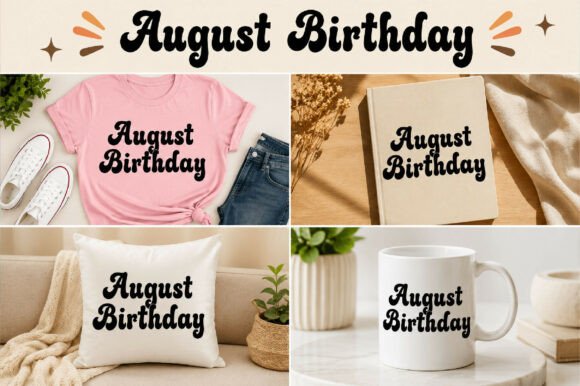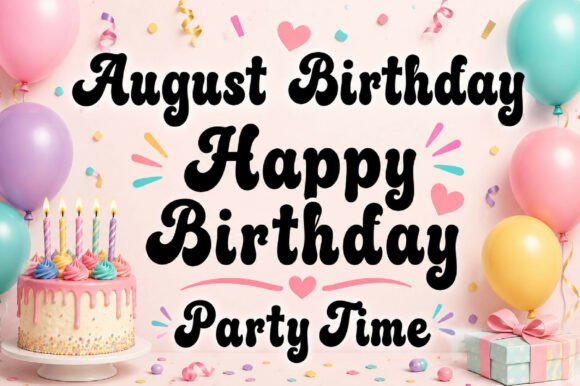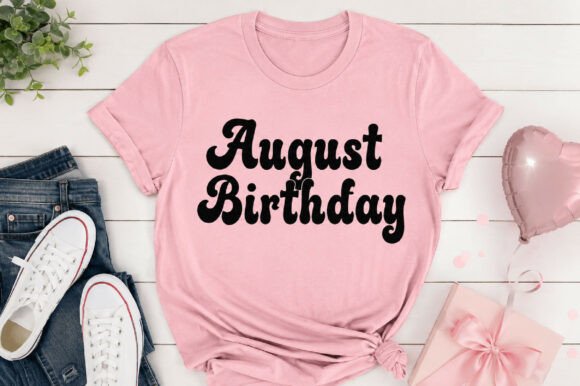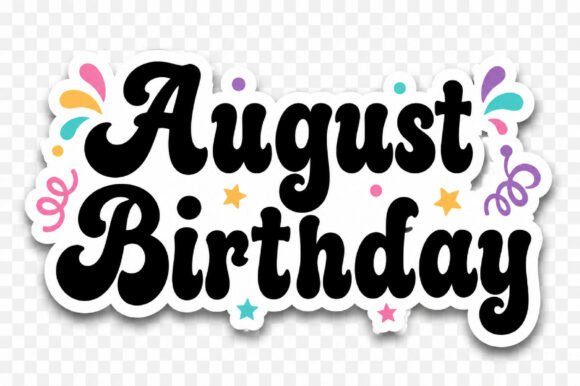
The Perfect Script for Celebrating Life’s Special Moments
Have you ever stumbled upon a font that instantly puts a smile on your face and makes you feel like creating something special? That’s exactly what happens when you discover the August Birthday Font. This charming script display font is designed to bring a joyful, festive, and friendly touch to your designs.
As a designer, you’re always on the lookout for the perfect typography to make your projects stand out. That’s where the August Birthday Font comes in – perfect for birthday themes, party graphics, greeting cards, invitations, stickers, packaging, and cute branding projects. With its bold strokes, smooth curves, and playful letterforms, this font adds personality and happiness to every layout, making it a valuable addition to your design toolkit.
August Birthday Font Key Features
- Unique Characteristics: The August Birthday Font features a playful, cursive script with decorative flourishes, making it perfect for adding a personal touch to birthday celebrations.
August Birthday Font Review
As a designer, I recently had the chance to work with the August Birthday Font, and I wanted to share my honest thoughts on its strengths and weaknesses.
- ✨ Beautiful, elegant script: The font is perfect for adding a touch of sophistication to birthday cards, invitations, and other celebratory designs.
- ✨ Great for handwritten effects: The font’s flowing lines and connections make it ideal for creating the illusion of handwritten text.
- ✨ Versatile: The font can be used for a wide range of designs, from elegant parties to casual gatherings.
- ⚠️ Limited character set: The font only includes uppercase and lowercase letters, numbers, and a few punctuation marks, which can be limiting for more complex designs.
- ⚠️ Not ideal for body text: While the font is perfect for headings and titles, it may not be the best choice for large blocks of body text due to its elegant, cursive nature.
Overall, I think the August Birthday Font is a beautiful and versatile addition to any designer’s toolkit. While it has its limitations, it’s perfect for adding a touch of elegance and sophistication to birthday designs.
The August Birthday Font is perfect for:
- Creating personalized birthday invitations and cards.
- Designing custom birthday banners and decorations.
- Adding a personal touch to social media posts and messages.